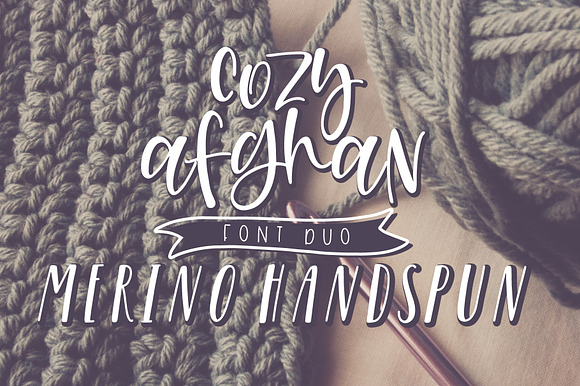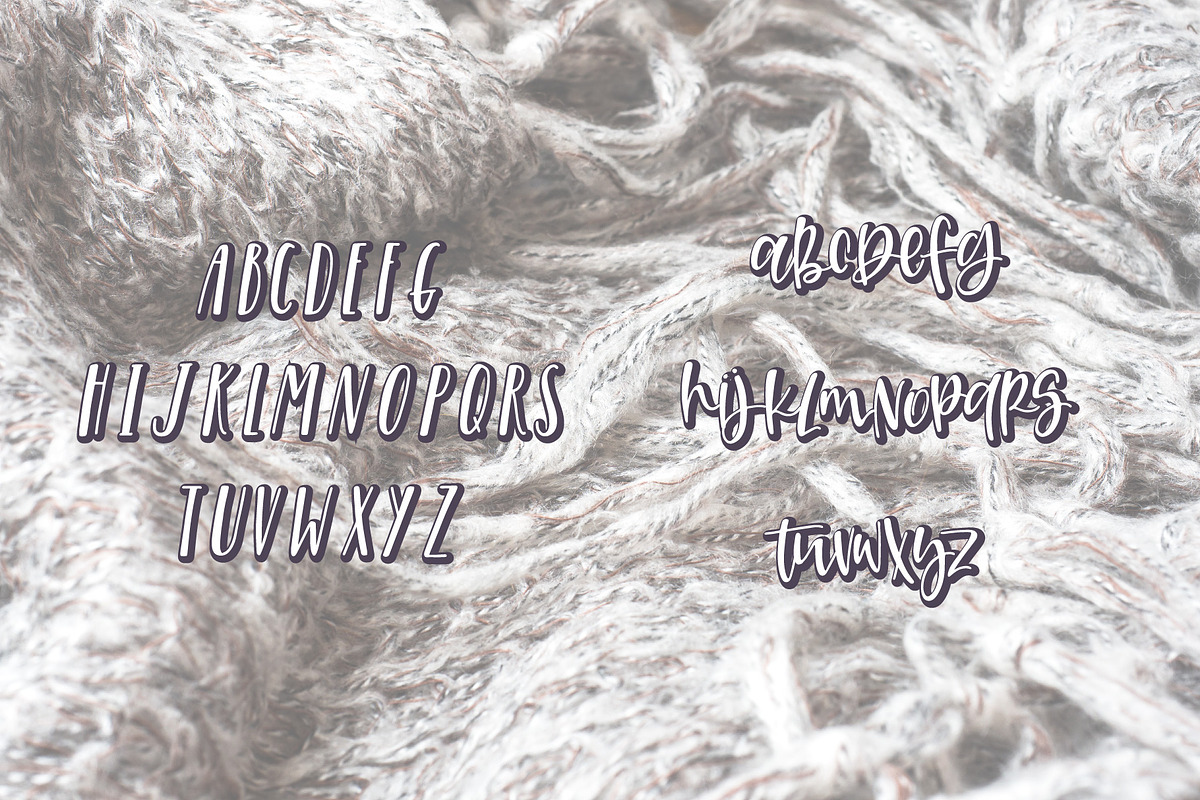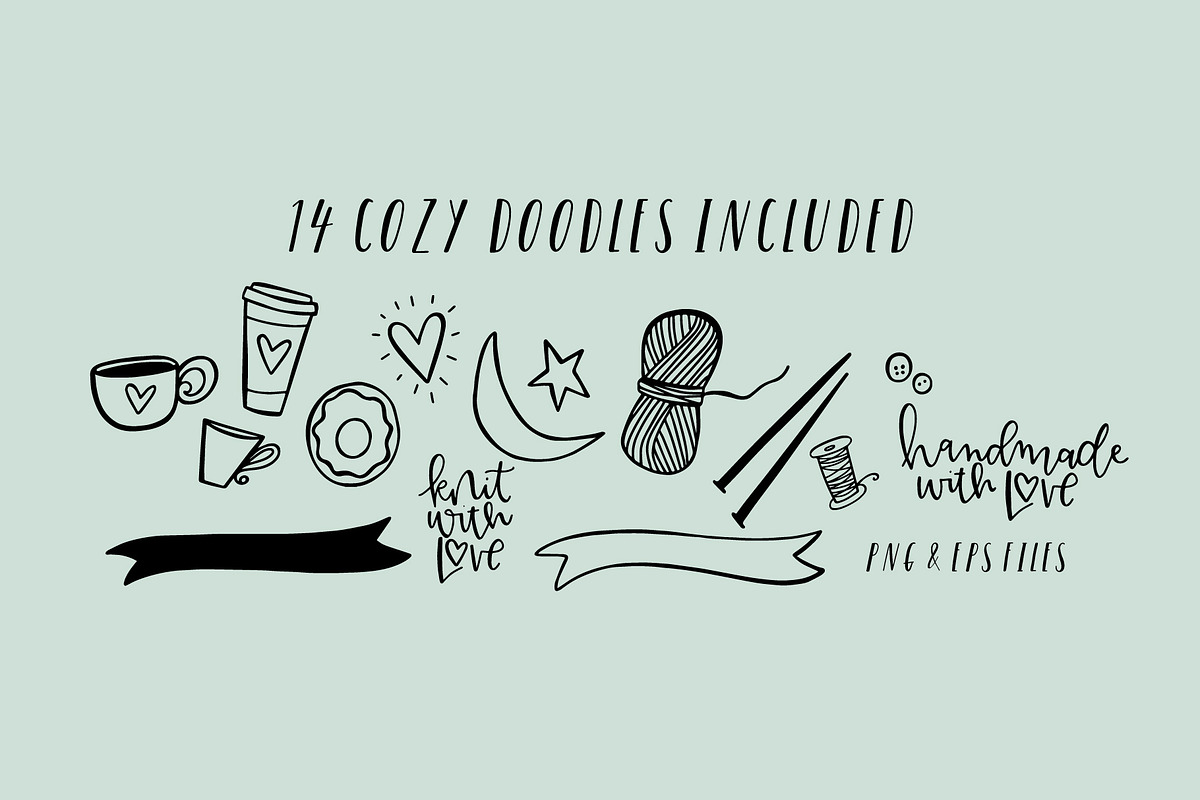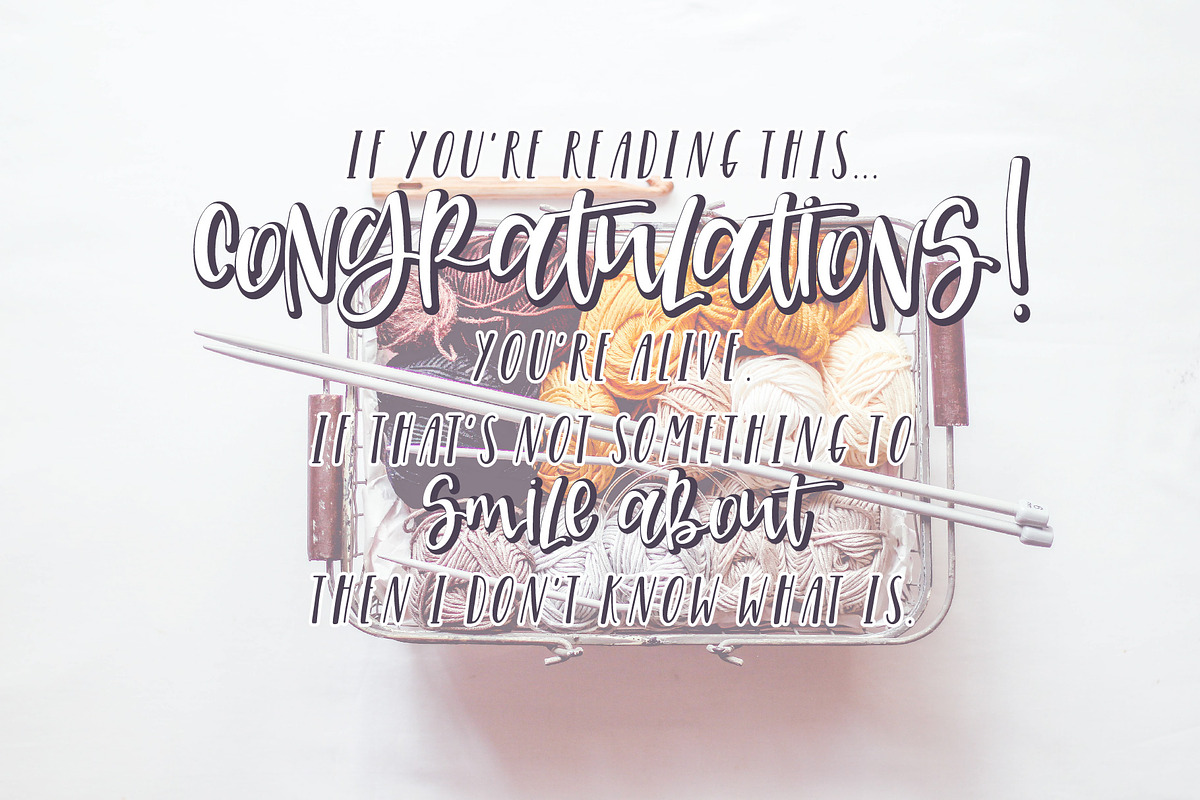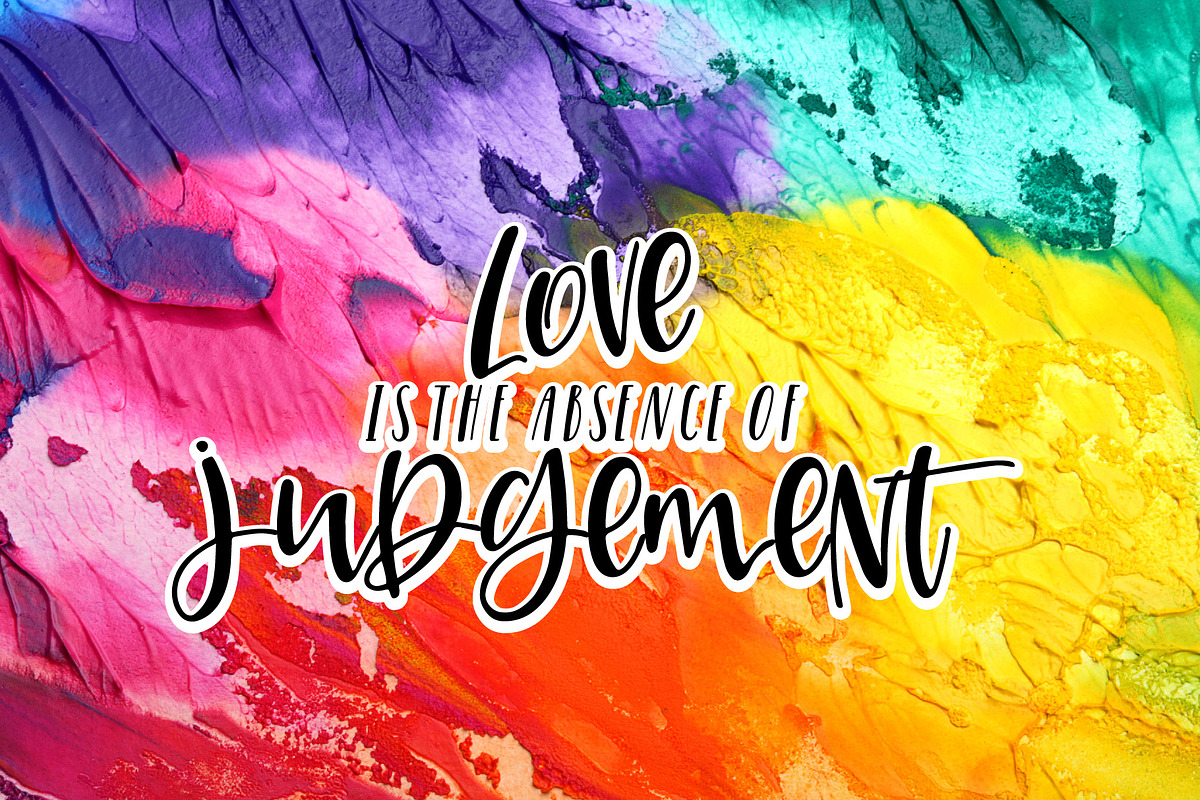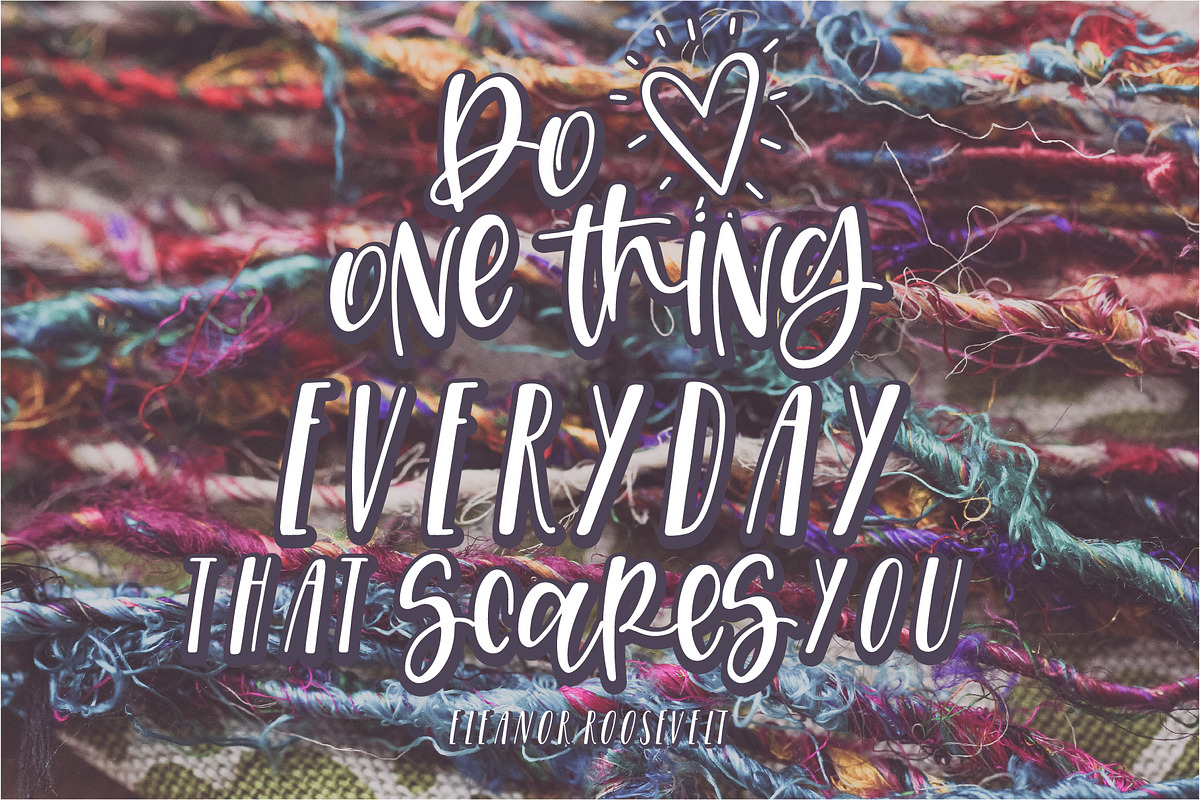
The Cozy Merino Font Duo
There is always something nice about a fun and quirky script paired with a simpler italicized print. Meet Cozy Afghan & Merino Handspun. Both fonts were hand lettered and include A-Z (Cozy Afghan is a mixed case font, Merino is an all caps font), 0-9, Punctuation as well as accented characters.
- Cozy Afghan Regular
- Merino Handspun Regular